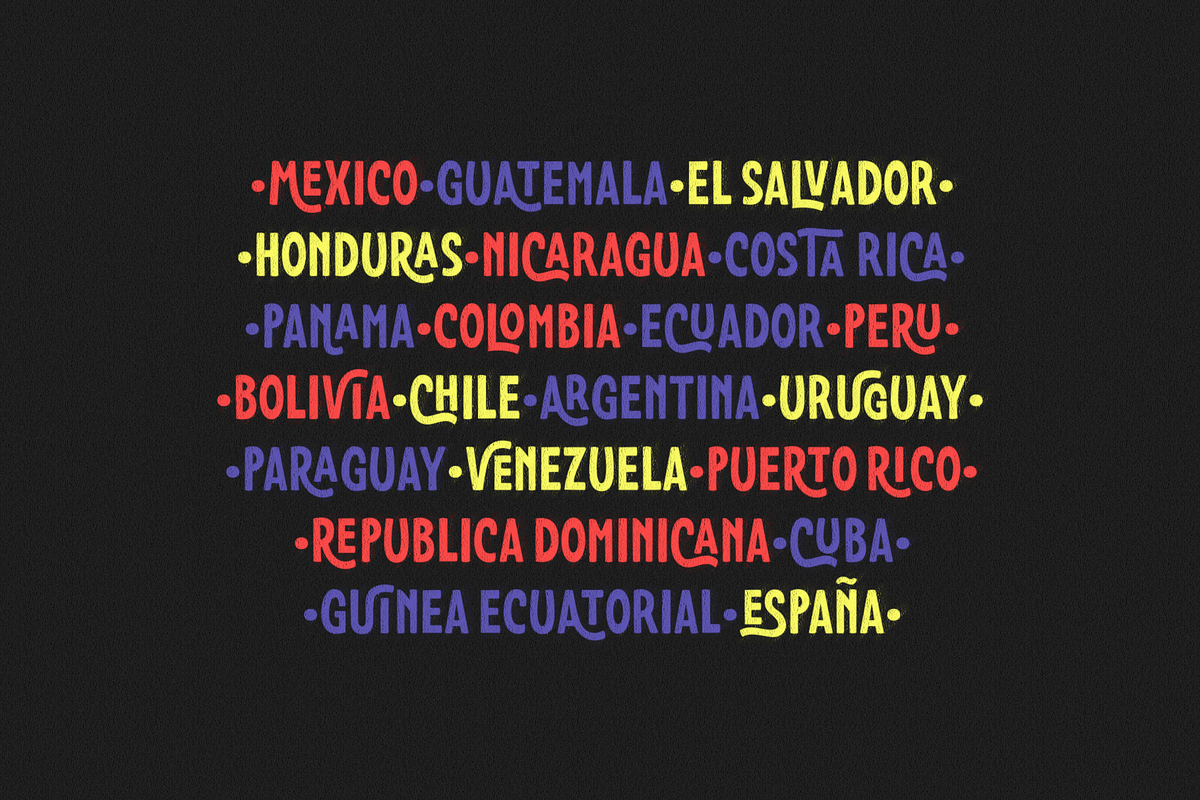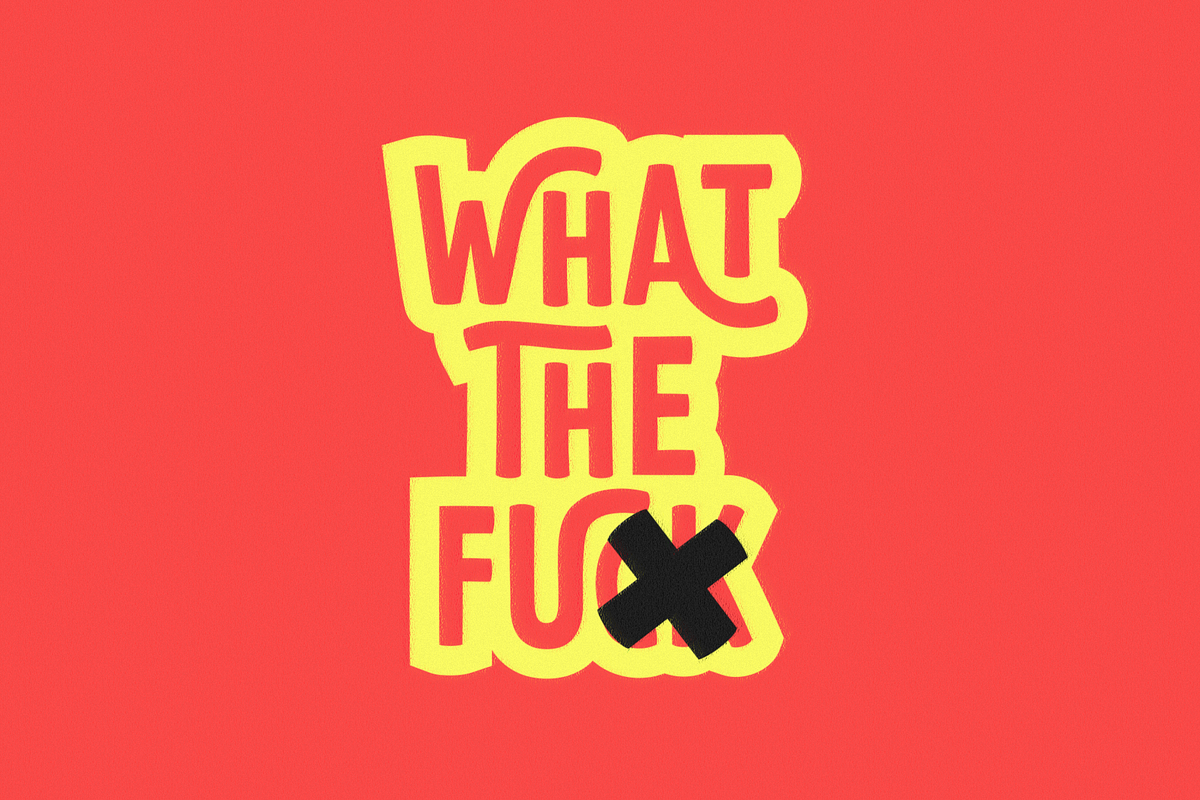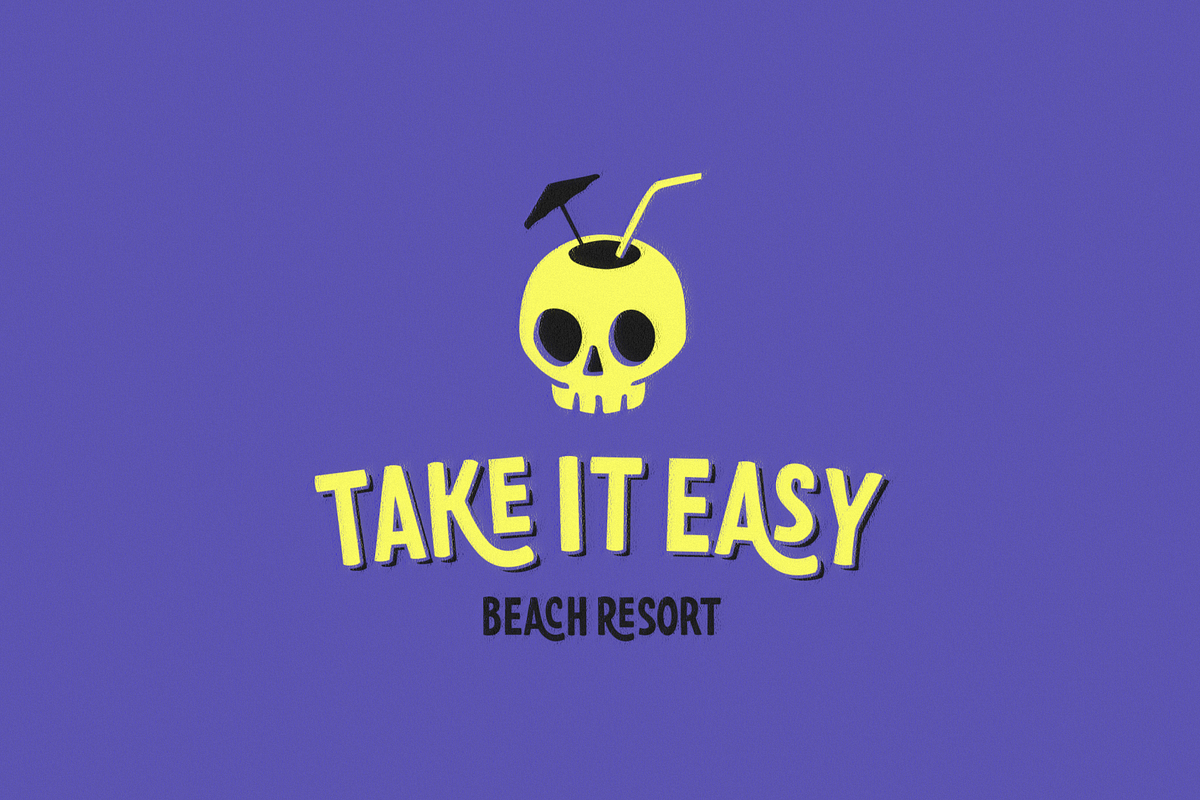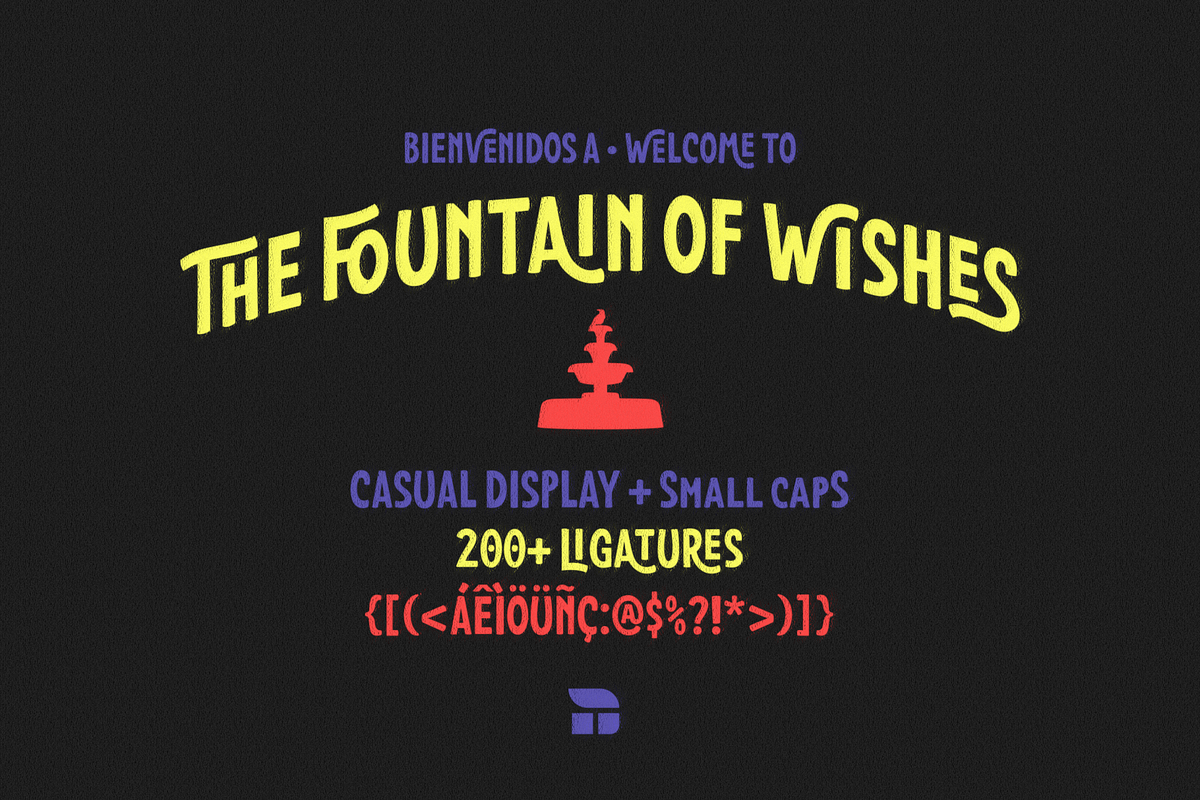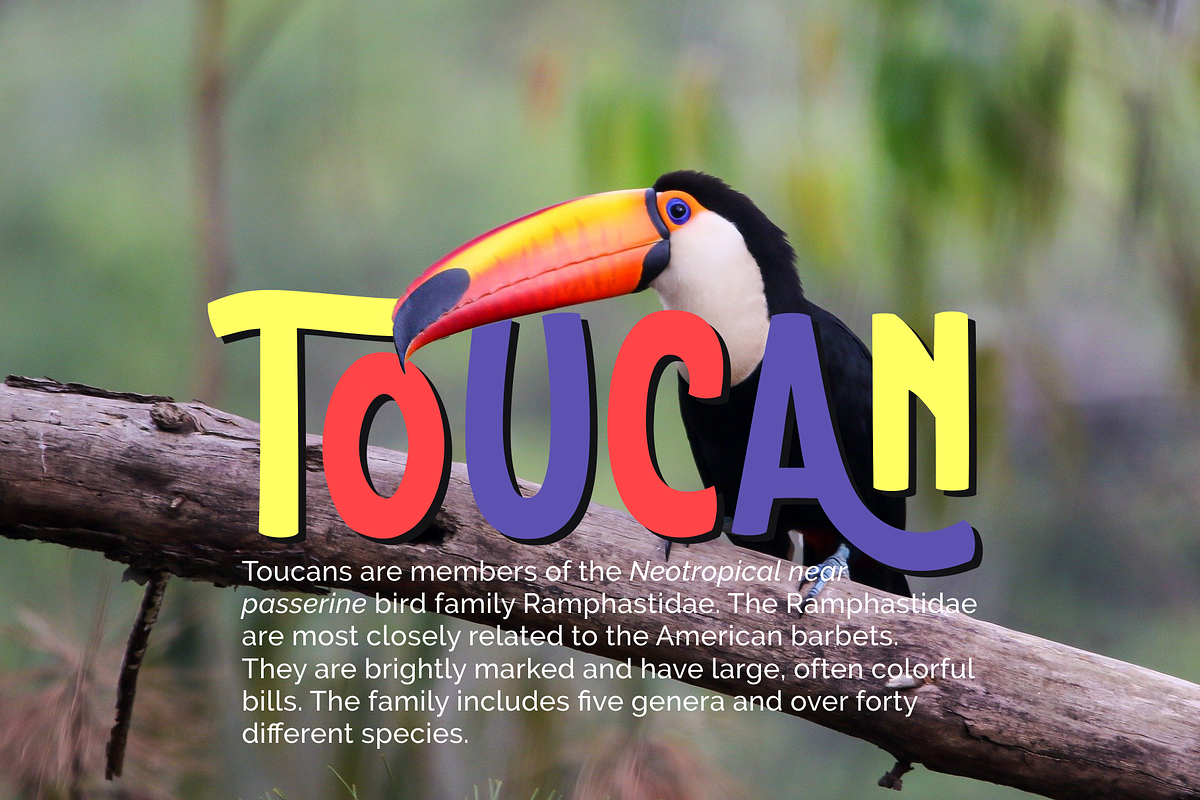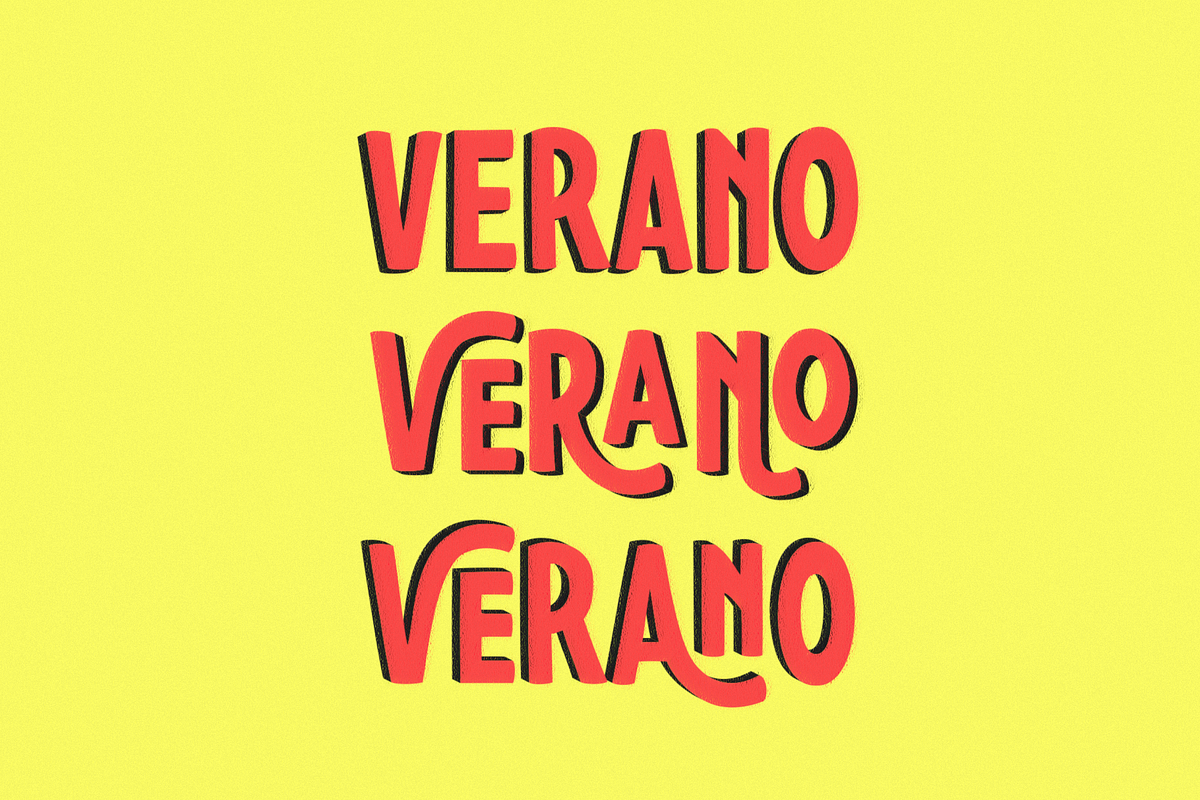
The Fountain of Wishes
The Fountain of Wishes (La Fuente de los Deseos) is a fun and lively casual display typeface. Use it for logos, titles, social media posts, scrapbooking, etc.
Includes: •Uppercase + Small Caps •+200 Ligatures (Select the letter pair you want and then activate ligature. You must use a software where you can control ligatures) • Basic latin language support